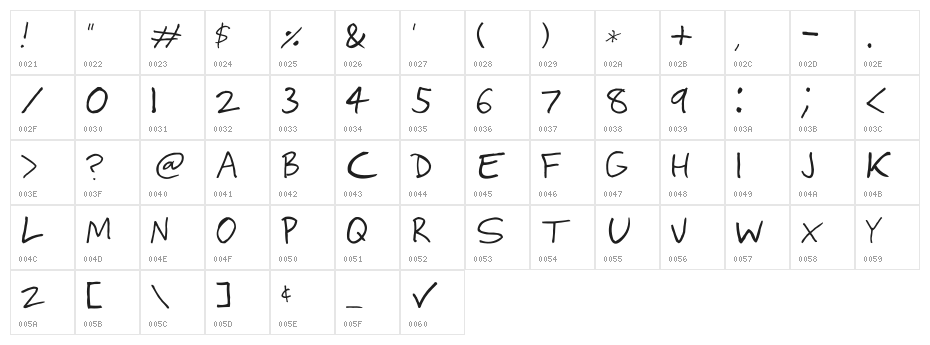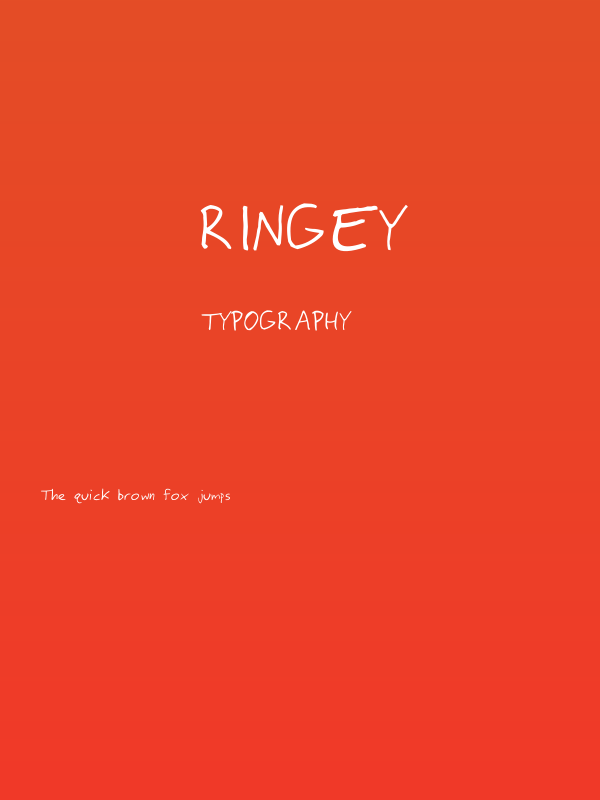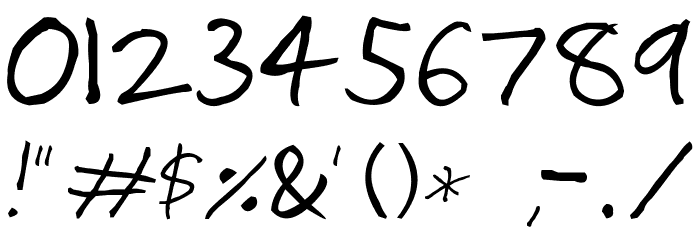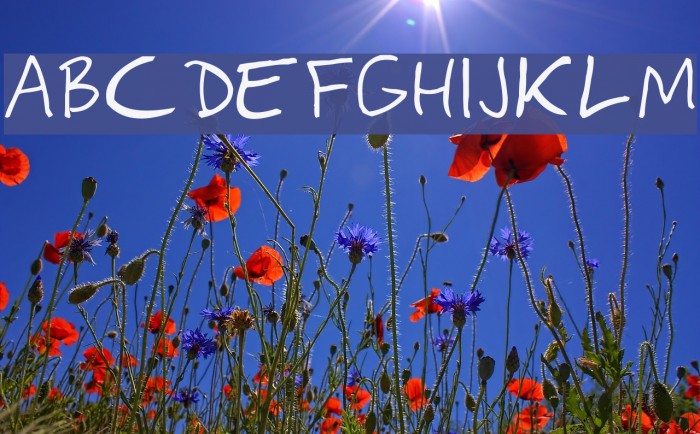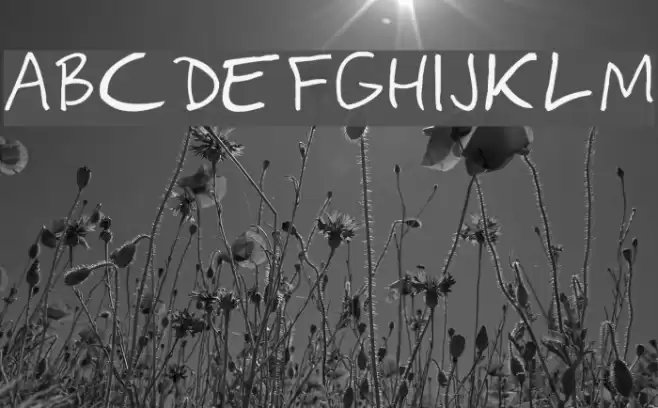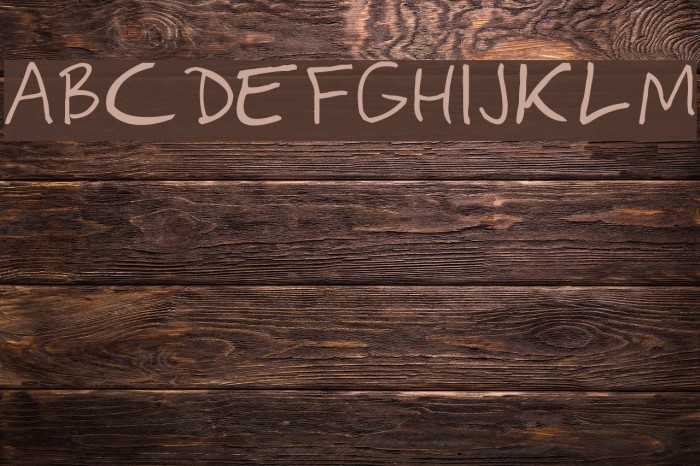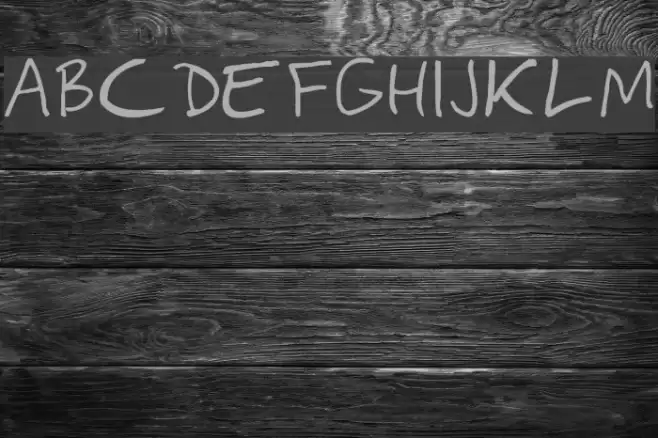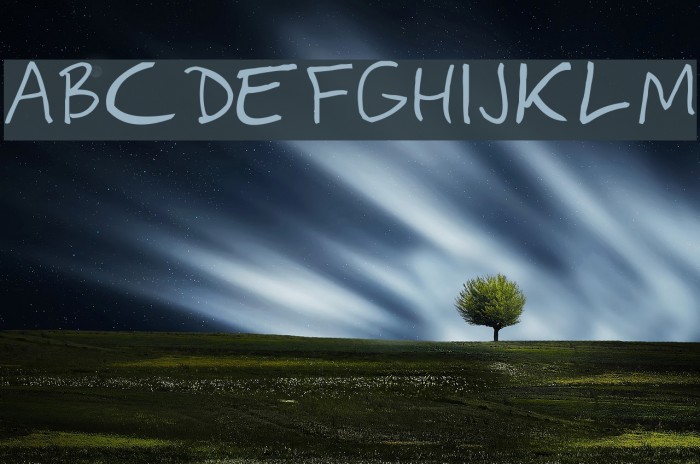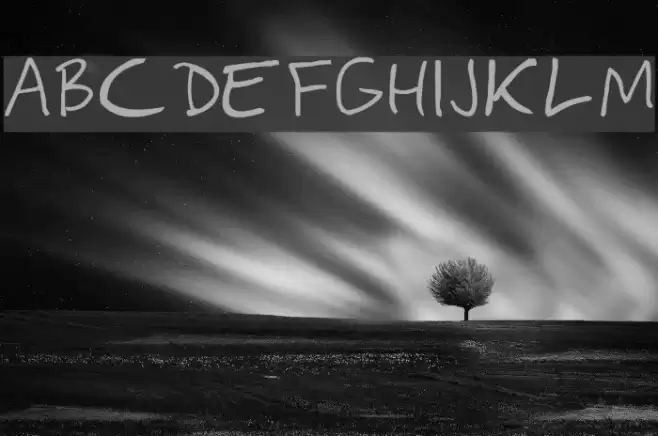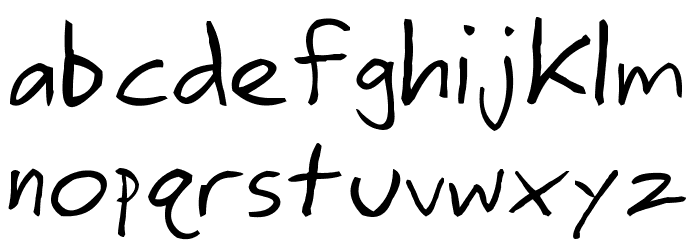
ringey Font
ringey Description
This font features a playful and informal handwritten style, characterized by its irregular strokes and casual appearance. The letters have a slightly uneven baseline, giving them a dynamic and lively feel. The uppercase and lowercase letters maintain a consistent style, with rounded edges and varying stroke widths that add to the font's charm. The numbers and special characters are designed to match the overall aesthetic, ensuring a cohesive look across all text elements. This font is ideal for projects that require a personal touch or a relaxed, friendly vibe.
| Overall Style | Casual, Playful |
| Use Case | Headlines, Informal text, Creative projects |
| Proposed Projects | Greeting cards, children's books, personal blogs, casual branding, and social media graphics. |